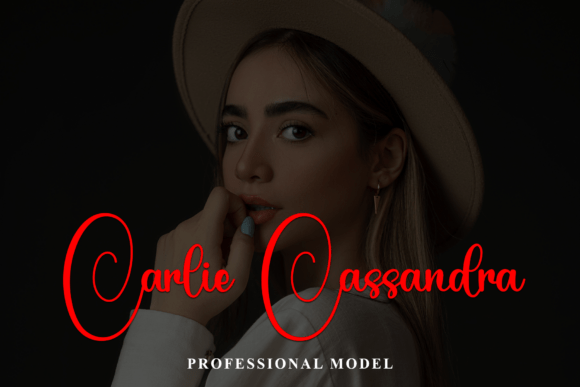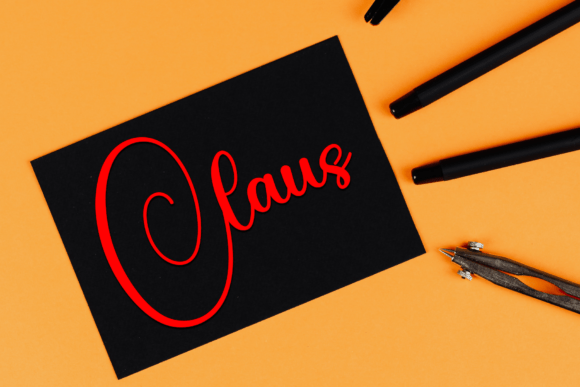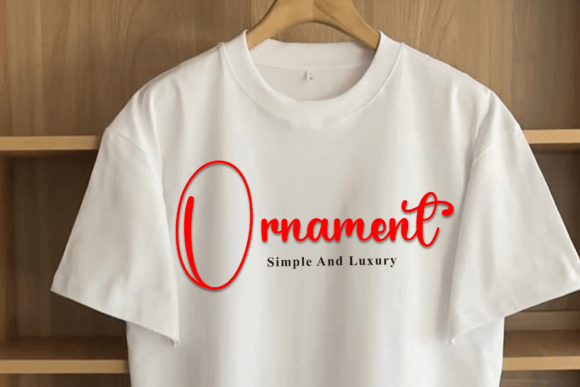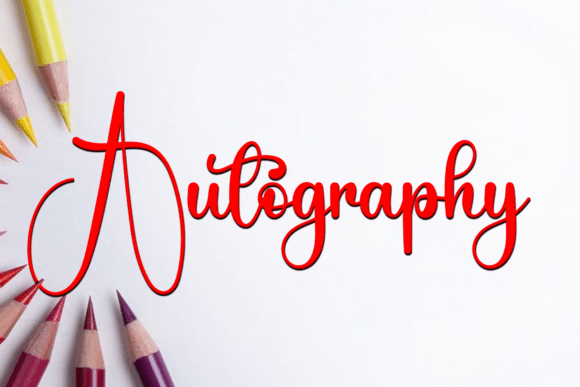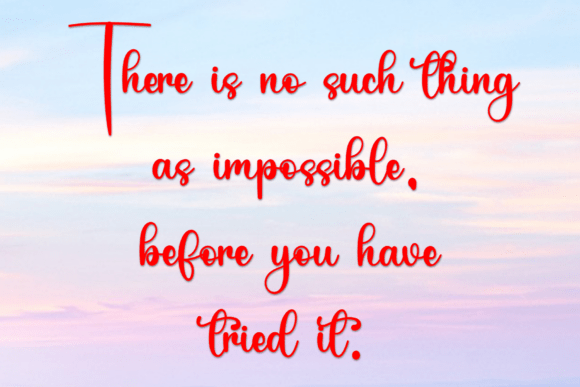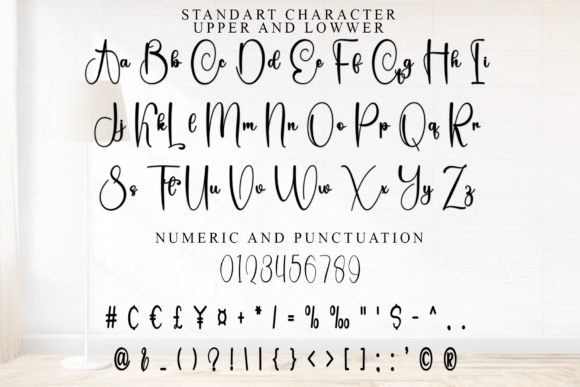
Deck the Halls with Holiday Cheer: Discover the Christmas Font
As the holiday season approaches, many of us find ourselves scrambling to create the perfect invitations, social media graphics, and personal projects that capture the magic of Christmas. Whether you’re a seasoned designer or a creative hobbyist, you know the importance of choosing the right font to convey the warmth and friendliness of the season. This is where the Christmas Font comes in – a delightful, hand-drawn typeface that’s sure to add a touch of festive flair to any design.
Designed to evoke a sense of relaxation and approachability, the Christmas Font is perfect for designers who want to create unique and memorable designs that stand out from the crowd. With its standard PUA Encoded glyphs, this font is compatible with a range of application engines, making it easy to use in your favorite design tools.
Christmas Font Key Features
- Unique Characteristics: The Christmas Font features festive and playful designs, including holly leaves, snowflakes, and Christmas trees, adding a touch of holiday cheer to any design.
Christmas Font Review
As a designer, I’ve had the chance to work with many fonts, and the “Christmas Font” is definitely one of the more festive options out there. ✨ One of the things that stands out to me is the variety of styles and decorations that come with this font. From traditional holly leaves to more modern snowflakes, there’s something for every holiday-themed design project.
- Creative and playful styles
- Includes a range of decorations and ornaments
- Perfect for holiday-themed designs and projects
That being said, there are a few limitations to keep in mind. ⚠️ For one, the font can be a bit over-the-top at times, which might not be suitable for every project. Additionally, some of the styles can be a bit difficult to read, especially in smaller font sizes. And while the variety of decorations is a plus, it can also be overwhelming to choose from.
Overall, I think the “Christmas Font” is a solid choice for designers looking to add some holiday cheer to their projects. With a little creativity and restraint, it’s easy to create designs that are both fun and effective. Just be mindful of the potential limitations, and you’ll be all set for a festive and successful design project.
Tips for Getting the Most Out of Christmas Font
For maximum impact, use Christmas Font in combination with festive graphics, colors, and textures. Experiment with different font sizes, colors, and arrangements to create a visually appealing design.
Christmas Font is perfect for holiday-themed designs, including:
- Christmas cards and invitations
- Holiday party decorations and signage
- Seasonal social media graphics
- Gift tags and wrapping paper